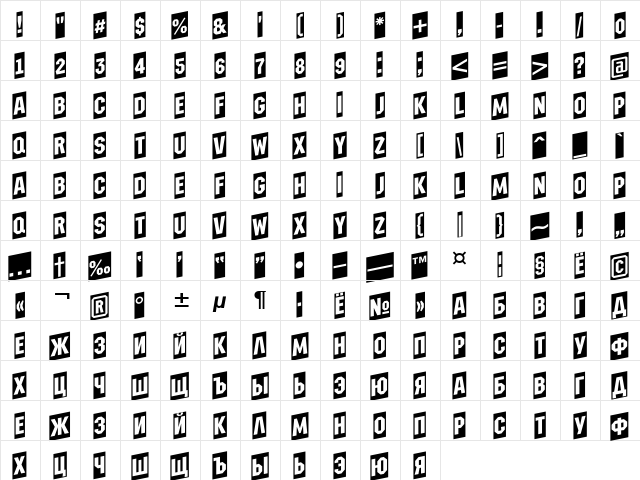
a_MachinaNovaCmUp Medium
Design Context for a_MachinaNovaCmUp Typeface
a_MachinaNovaCmUp is a composed and adaptable typeface that performs quietly and consistently across a wide range of design contexts.